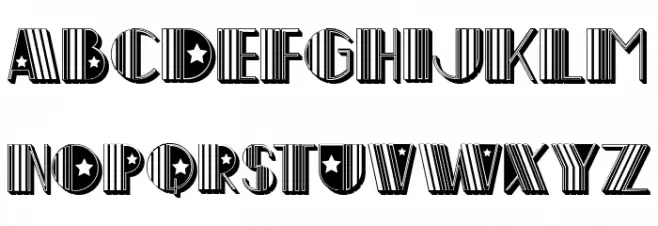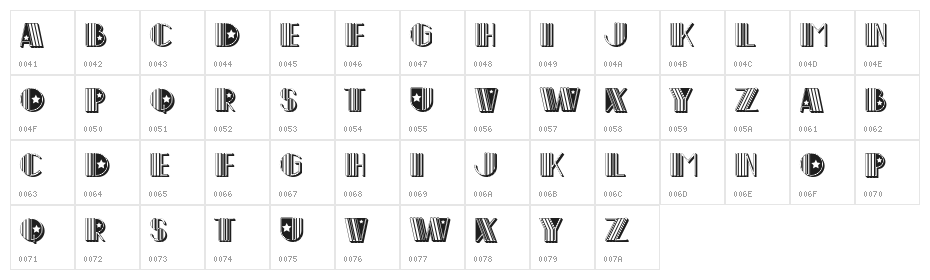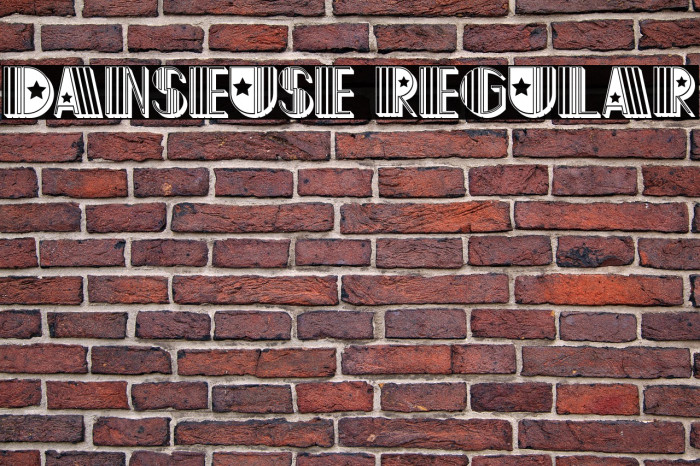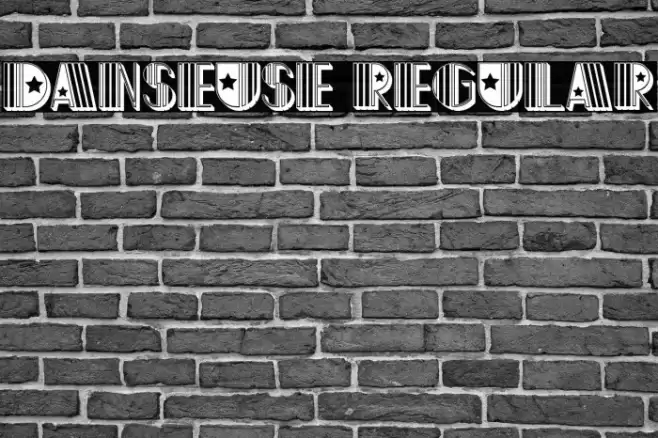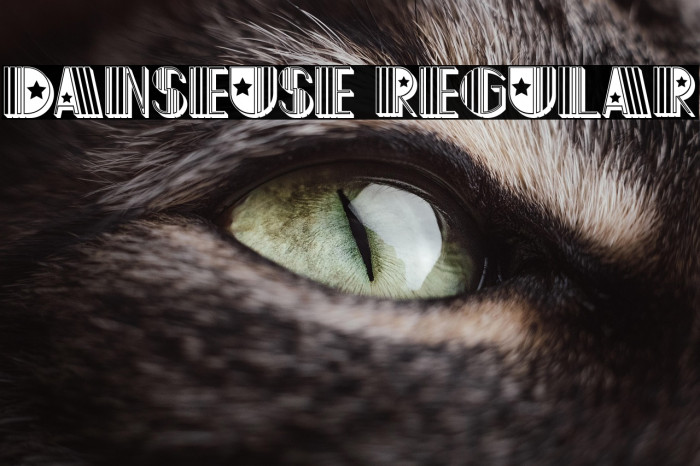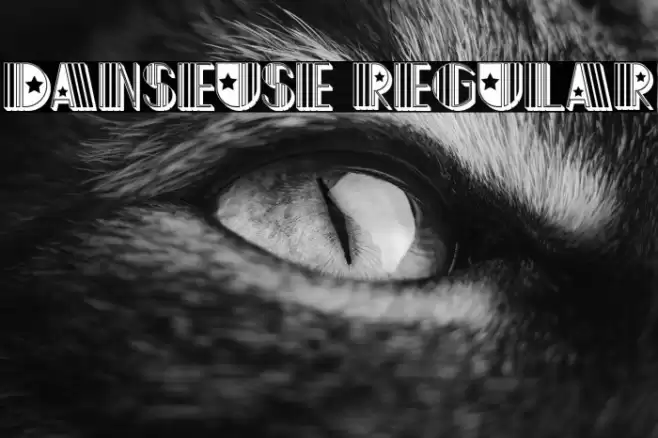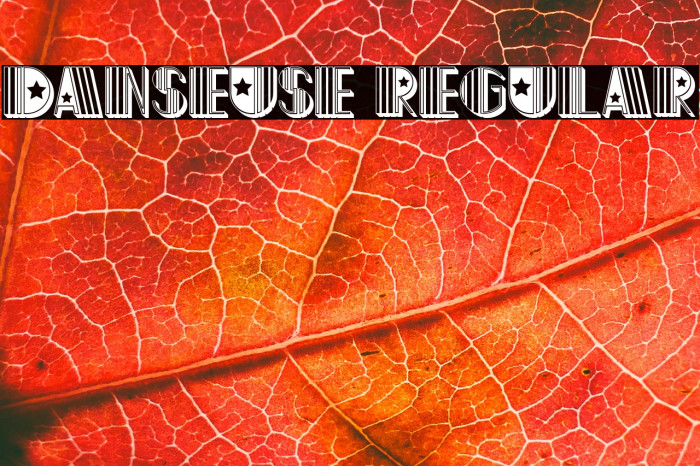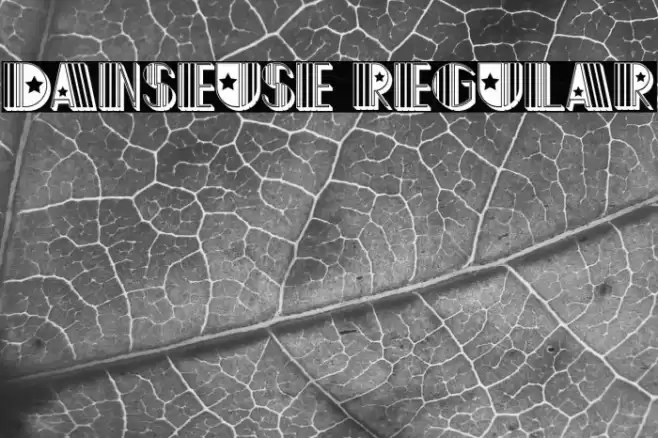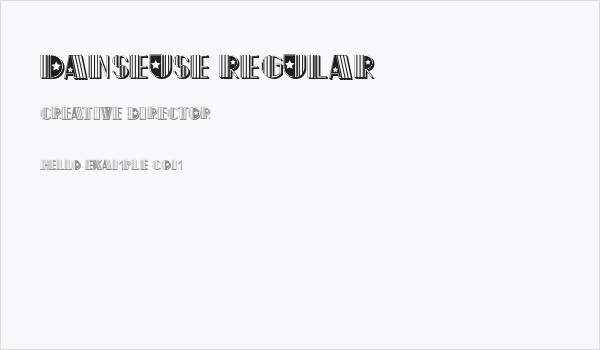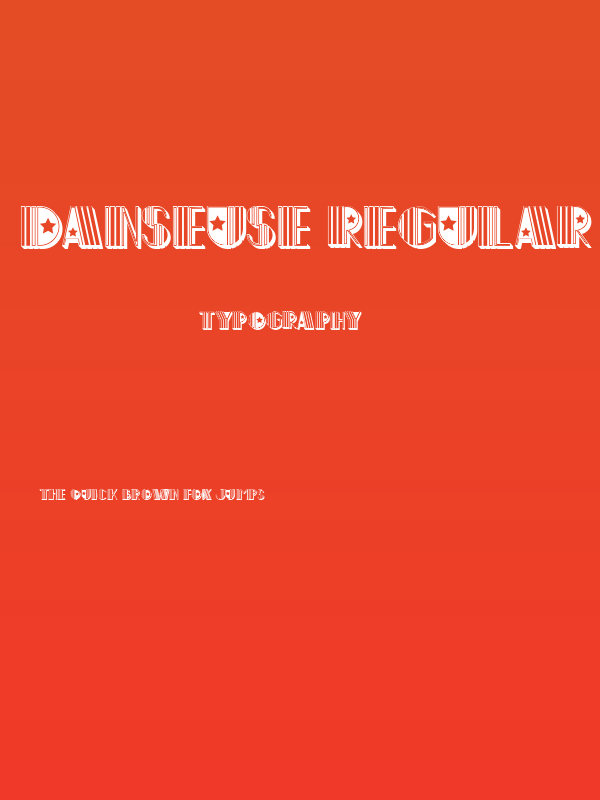
Danseuse Regular Font
Danseuse Regular Description
This font features a bold, decorative style with a unique striped pattern and star motifs within each character. The uppercase letters are designed with a strong geometric influence, creating a visually striking appearance. The font's design incorporates both solid and outlined elements, adding depth and dimension. The characters are evenly spaced, maintaining a consistent rhythm throughout. This font is ideal for projects that require a bold statement and a touch of whimsy, making it suitable for creative and artistic applications.
| Proposed Projects | Ideal for posters, event invitations, branding, and creative designs that need a bold, artistic touch. |